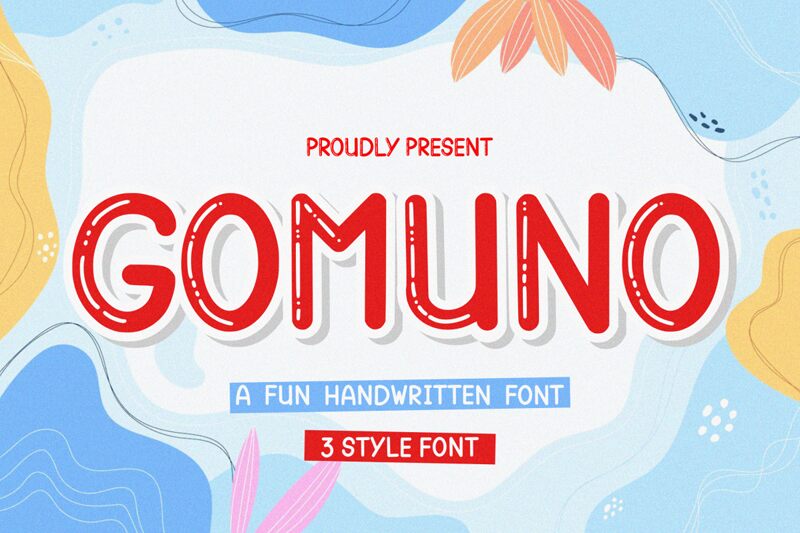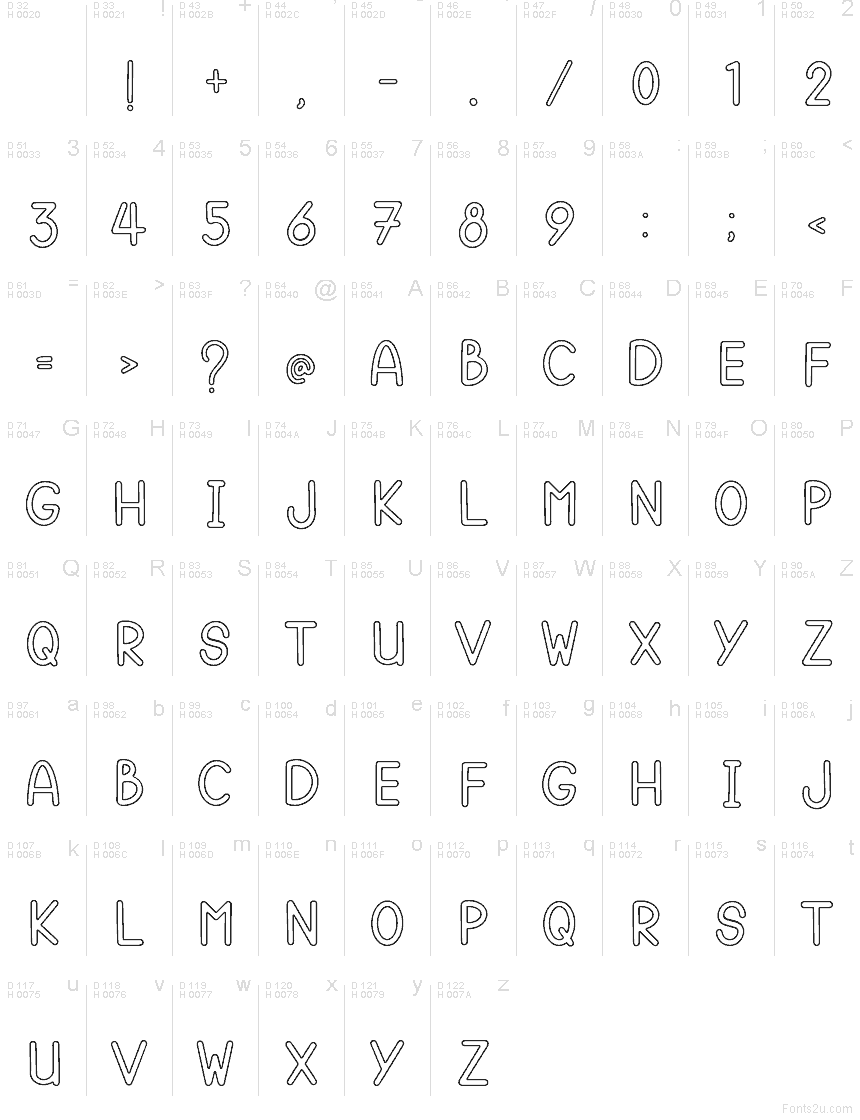
Gomuno Outline
Gomuno Outline font by Essentials Studio is a free outlined display typeface with a soft, rounded spine and a lively, hand-drawn feel. Each character is traced in a clean, monoline stroke that feels like it was drawn with a smooth black marker, leaving airy interiors that invite color, texture, or imagery to show through. The overall look is friendly and approachable, with generous curves and easy rhythm that read clearly even at larger sizes.
Using Gomuno Outline, you can bring a playful, spacious look to kids’ branding, party invitations, poster headlines, packaging, social media graphics, or bold logotypes. This free font shines when you blow it up big and let the outlines breathe, and it pairs nicely with a simple geometric sans or clean handwritten script set in solid fill underneath or alongside it.